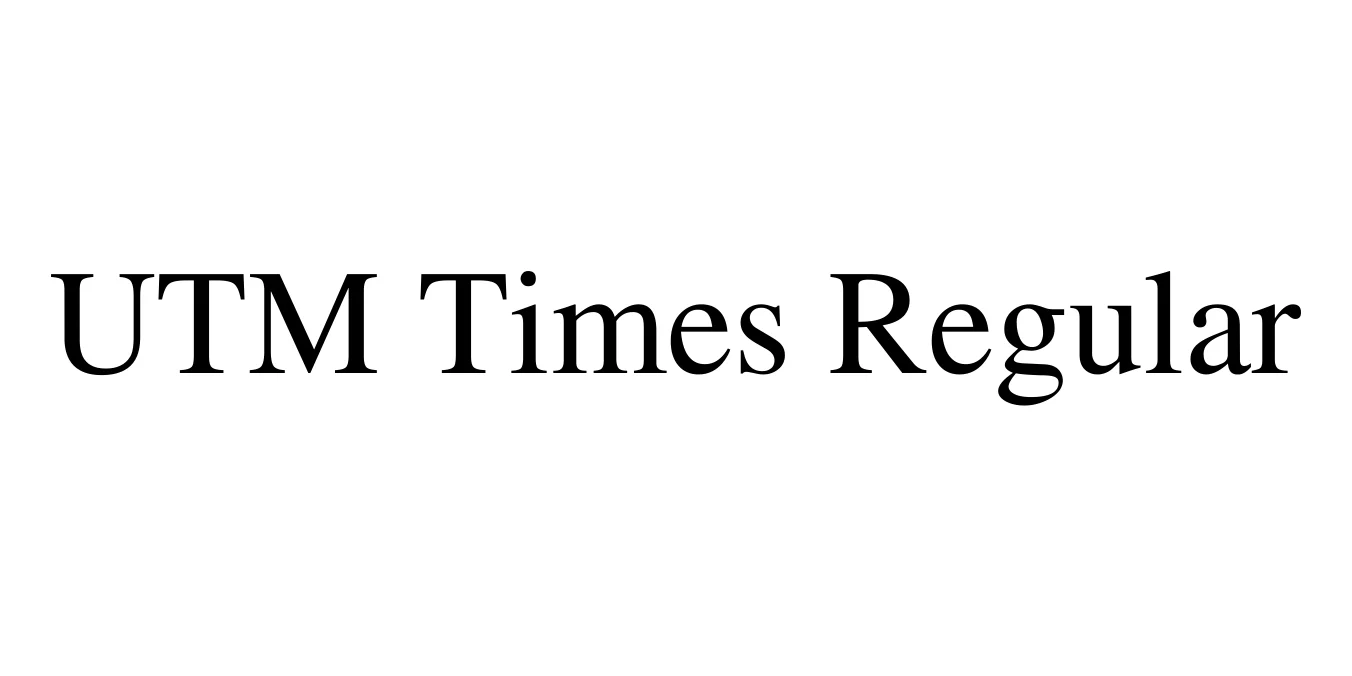
UTM Times Regular
Designed by Vo Quang Huy (UTM Fonts)
UTM Times Regular is a Vietnamese-localized adaptation of the iconic Times New Roman typeface. Developed as part of the UTM (Unicode Tiếng Việt My) collection, this font was specifically engineered to provide full support for the complex diacritical marks used in the Vietnamese language. It retains the classic proportions, high legibility, and authoritative tone of the original design created by Stanley Morison and Victor Lardent, making it a staple for official communication within Vietnam.
As a traditional Serif typeface, UTM Times Regular is defined by its sharp terminals and distinct contrast between thick and thin strokes. This design makes it exceptionally comfortable for long-form reading, whether in printed newspapers or digital documents. Because it adheres to Unicode standards while maintaining the aesthetic integrity of historical serif fonts, it remains one of the most reliable and widely used typefaces for professional, academic, and administrative purposes in the Vietnamese community.
UTM Times Regular Best Uses
Ideal for legal contracts, government forms, and formal business letters.
Perfect for body text in newspapers, magazines, and long-form book publishing.
Widely used for university theses, research papers, and educational materials.